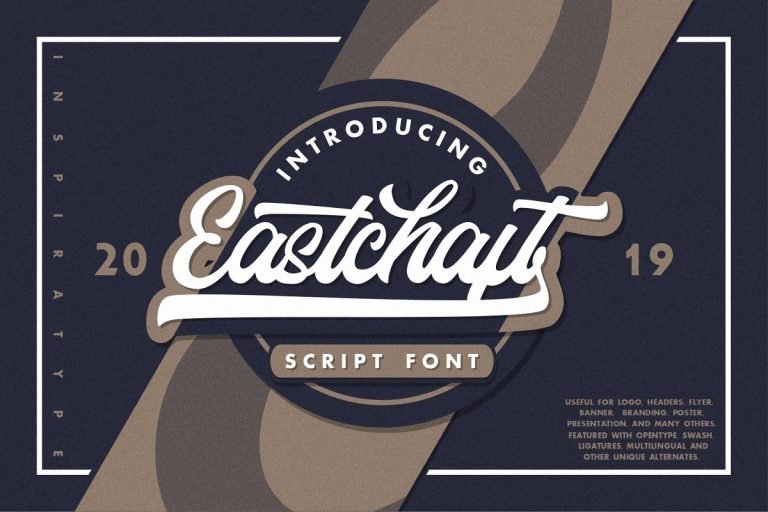
Eastchaft Script Font
This is a vintage calligraphy font with the current handwriting style, Inspired by vintage tradition and aesthetic old things. This font is suitable for logo, labels, packaging, poster, t-shirt and many more application! Introducing Eastchaft Font! Eastchaft Script Font is a font display is made by hand, inspired by classic posters. comes with uppercase, lowercase, numerals, punctuations and so many variations on each character include OpenType alternates, common ligatures and also additional swash to let you customize your designs. Perfect to use for Logotype, Letterhead, Poster, Apparel Design, Label and etc.